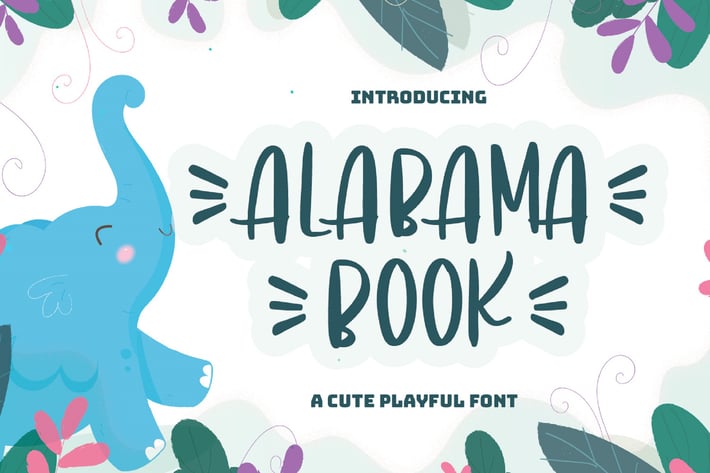
Handwritten Font
Looking for a cute and playful font to delight your guests?
If you’re hosting a baby shower, birthday party, or need a versatile font for printed materials - then we’ve got the font that’ll make your branding sparkle!
Introducing Alabama Book- A Cute Playful Font
This adorable, fun, and stylish font can be used for a host of different content needs and projects. Create gorgeous party invitations, printed quotes, standout packaging, or beautiful t-shirts! You can even use it to create amazing headings, logos, resumes, and social media graphics.
Inspire your audience, clients, or guests with this beautiful, statement font.
Multilingual & Ligature Support
Full sets of Punctuation and Numerals